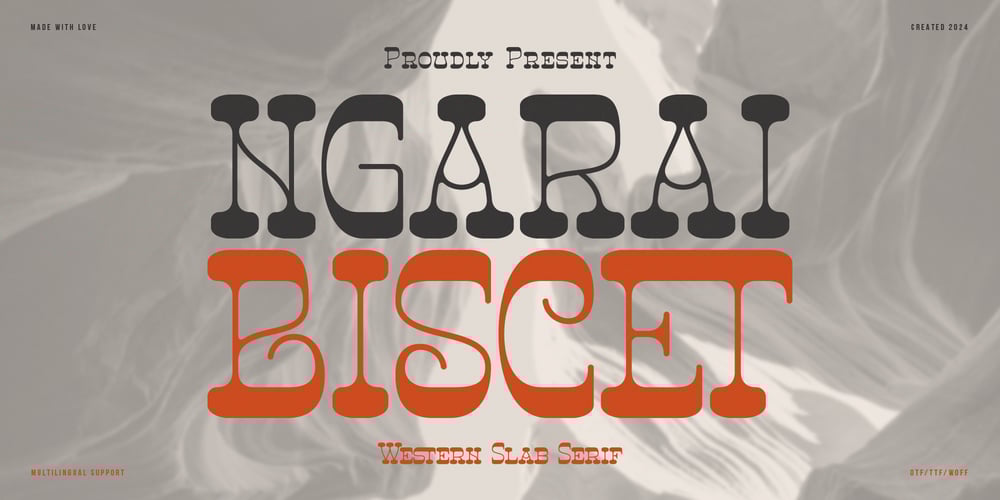
Ngarai Biscet
Ngarai Biscet font
Ngarai Biscet Font Family was designed by Dede Nugraha and published by Denustudio. Ngarai Biscet contains 2 styles and family package options. Ngarai Biscet | Western Slab Serif, from Denustudios, suitable for any projects such as: logos, branding projects, homeware designs, product packaging, mugs, quotes, posters, shopping bags, t-shirts, book covers, name card, invitation cards, greeting cards, label, photography, watermark, special events, and all your other lovely projects that need a Western Slab Serif taste.===========================================================================What’s Included : Regular and Italic Web Font Standard glyphs Alternate and Ligature Works on PC & Mac Simple installations Accessible in the Adobe Illustrator, Adobe Photoshop, Adobe InDesign, even work on Microsoft Word and Other Software. PUA Encoded Characters – Fully accessible without additional design software. Fonts include multilingual support Hope you enjoy with our font!